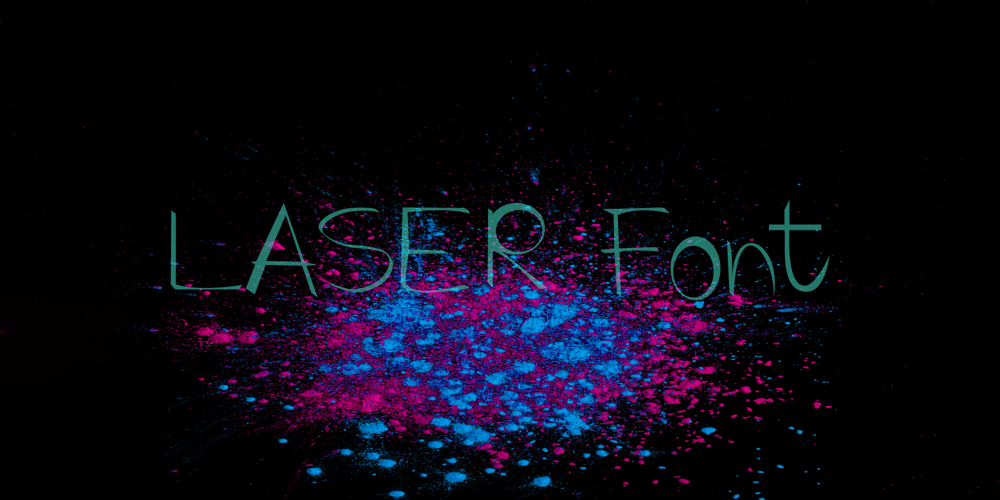
Laser sans Font Family was designed by Sol Hess and published by Arkalandara. Laser sans contains 1 styles and family package options. A font with a laser style typically features sharp, angular lines reminiscent of the precision of laser-cutting technology. Each letter might appear as if it’s been precisely etched or sliced out with a laser beam, creating a sleek and futuristic aesthetic. The strokes are often uniform and clean, giving the text a high-tech and edgy feel. The design may include elements such as thin lines, geometric shapes, and exaggerated serifs or terminals to enhance the futuristic look. Overall, a laser-style font embodies a sense of modernity, precision, and technological advancement.